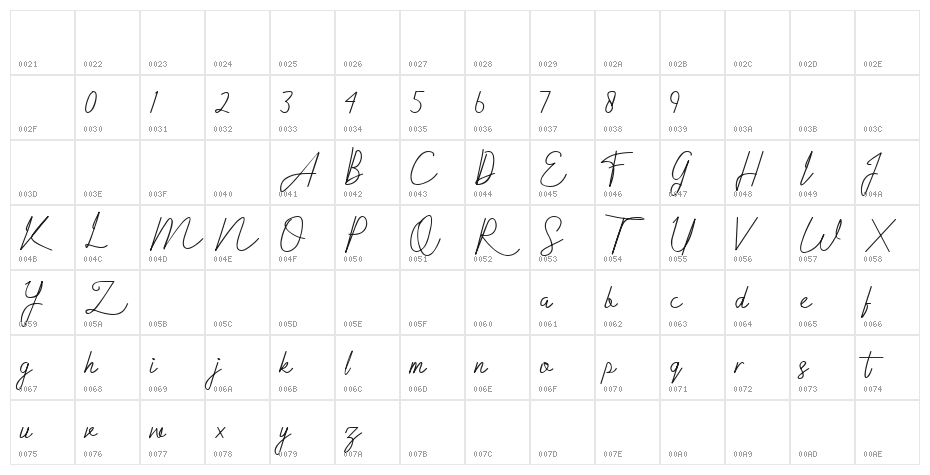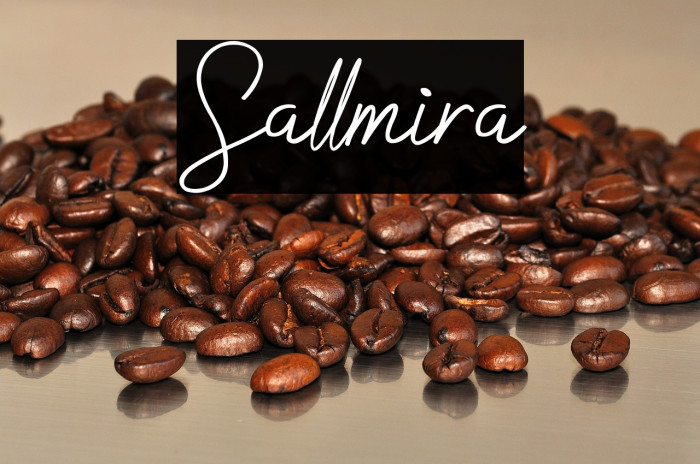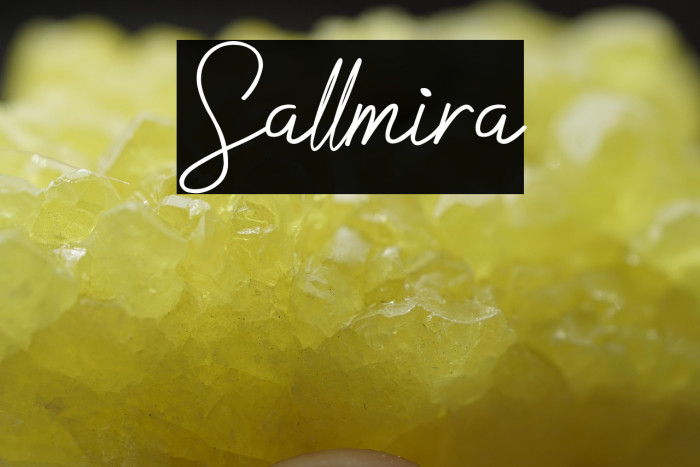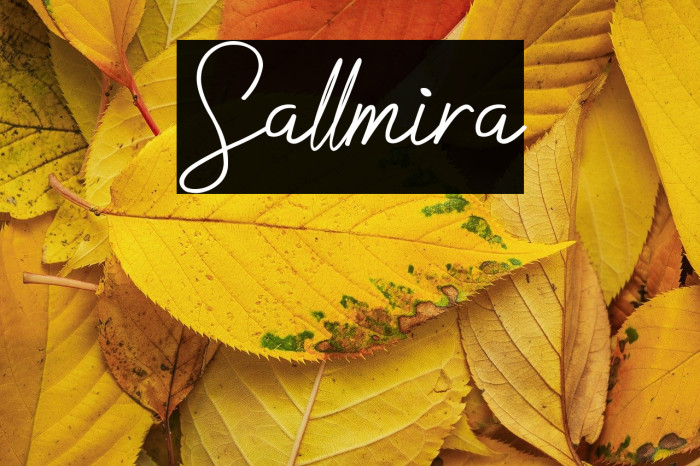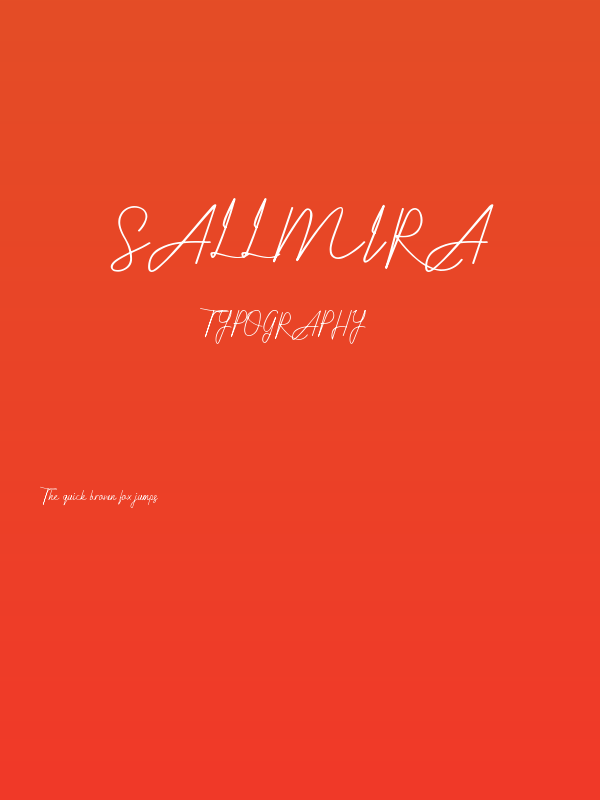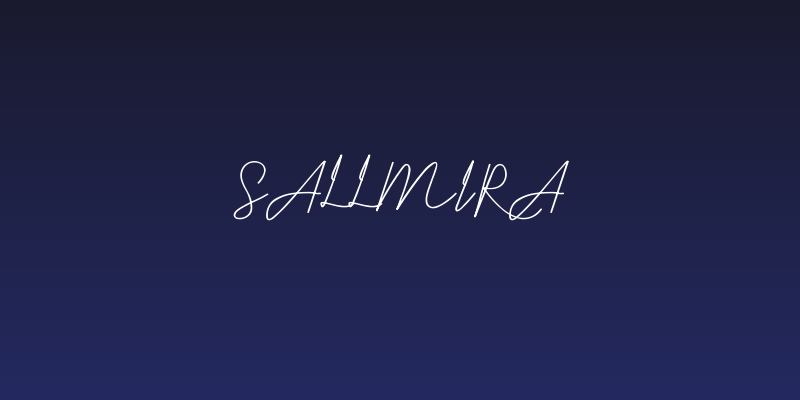
Sallmira Font
Sallmira Description
This font features a delicate and flowing script style, characterized by its elegant and smooth curves. The uppercase letters are tall and slender, with a slight slant that adds a sense of motion and grace. The lowercase letters maintain a consistent flow, with some characters featuring distinctive loops and swashes that enhance the font's decorative appeal. The numerals are clear and legible, maintaining the same graceful style as the alphabet. Overall, this font exudes a sense of sophistication and charm, making it ideal for projects that require a touch of elegance.
| Proposed Projects | Ideal for wedding invitations, elegant branding, personal stationery, and decorative quotes. |